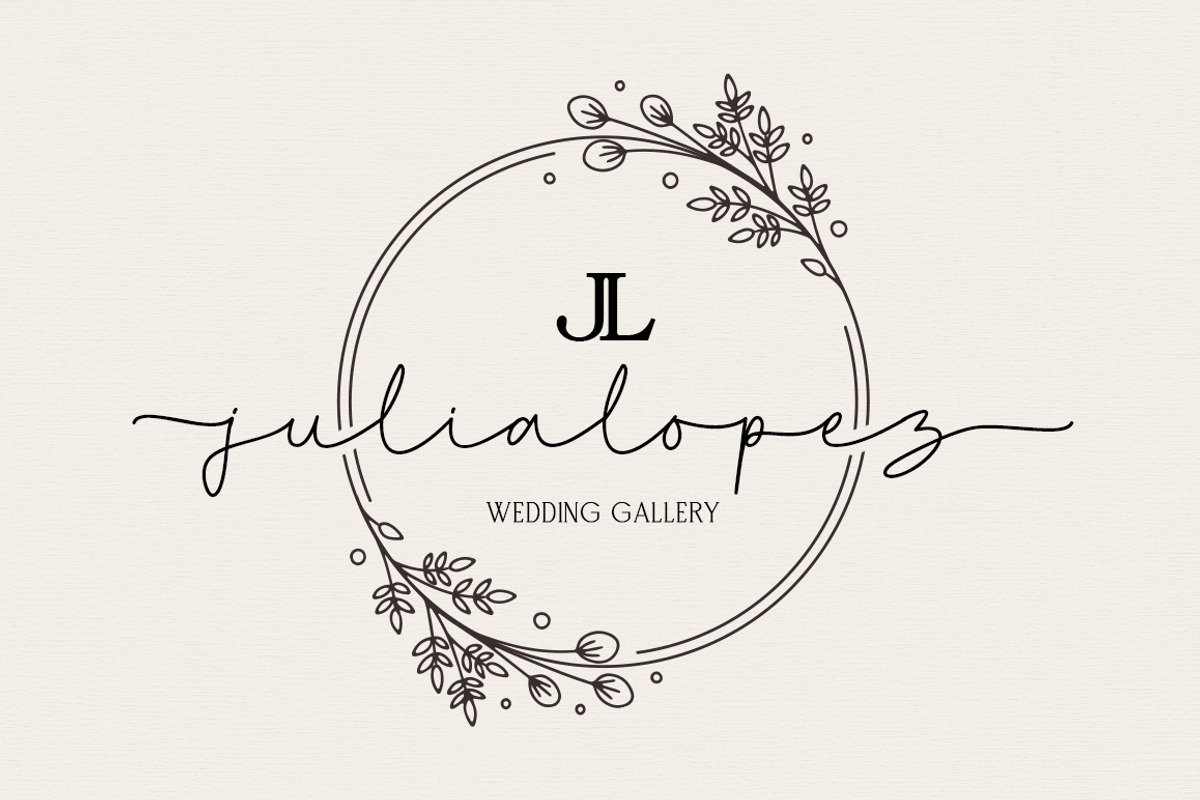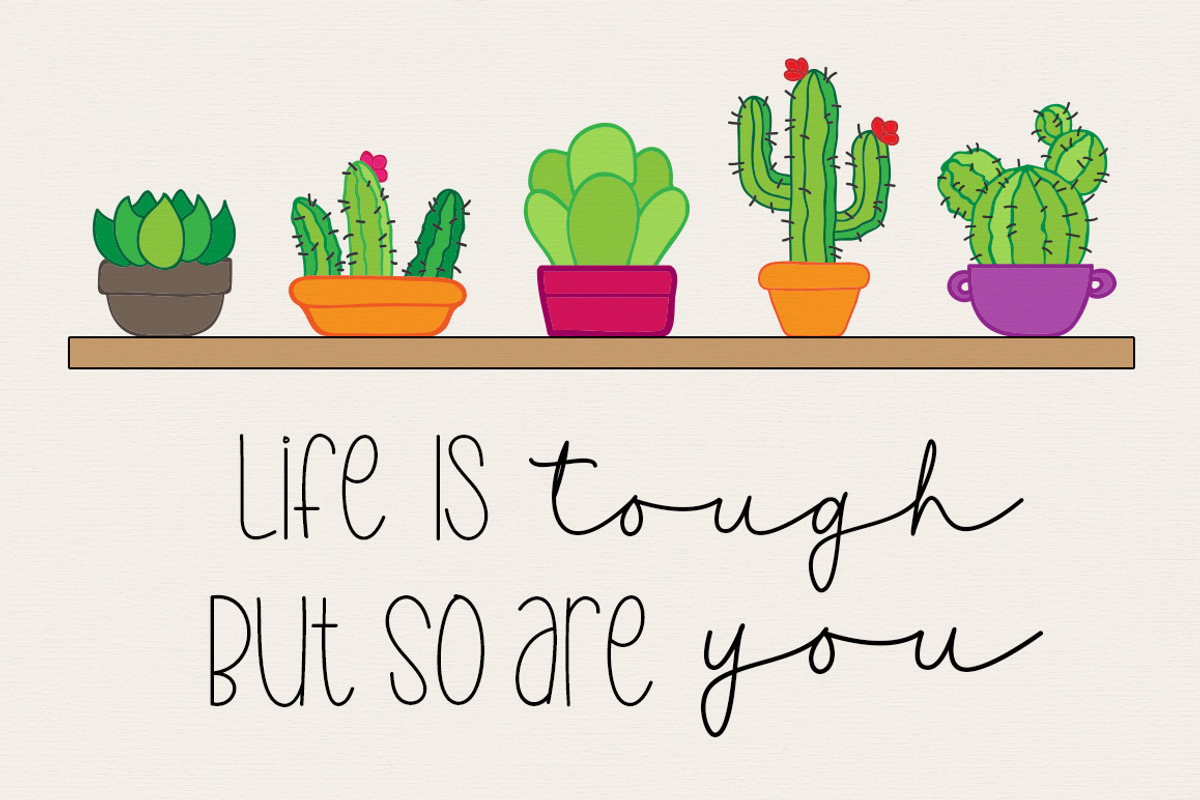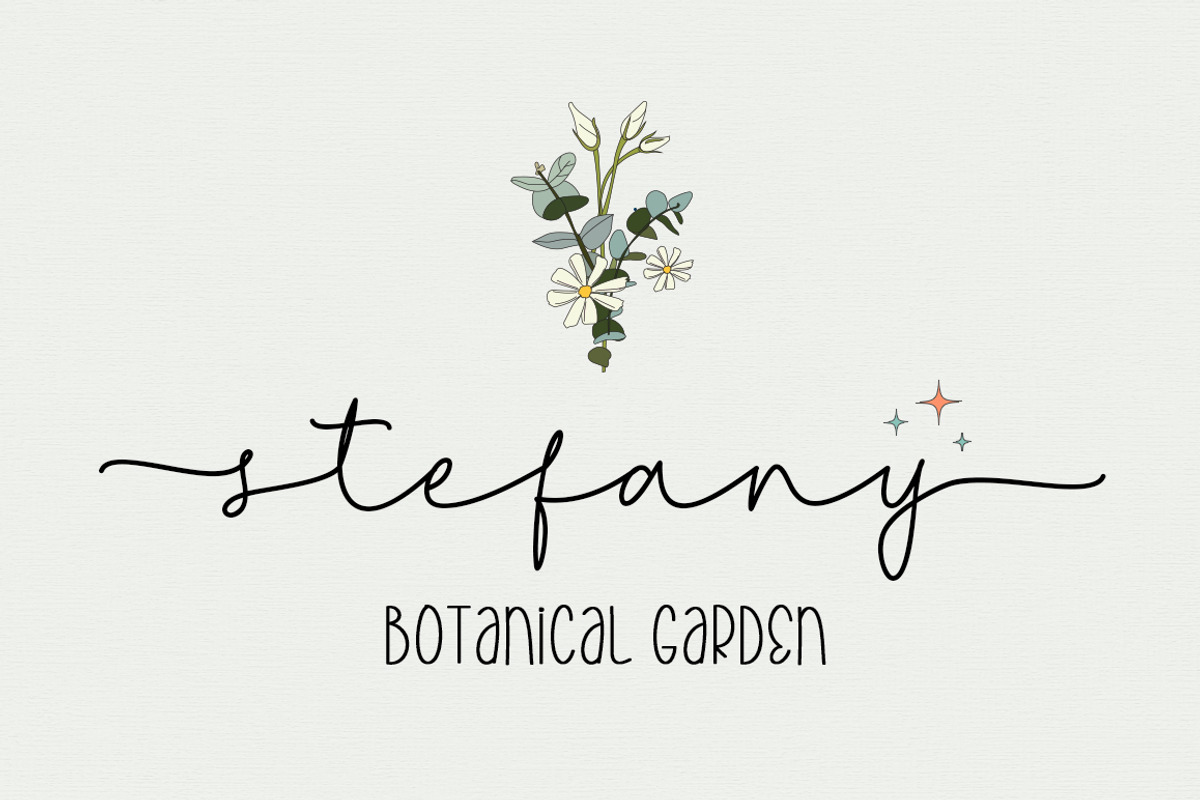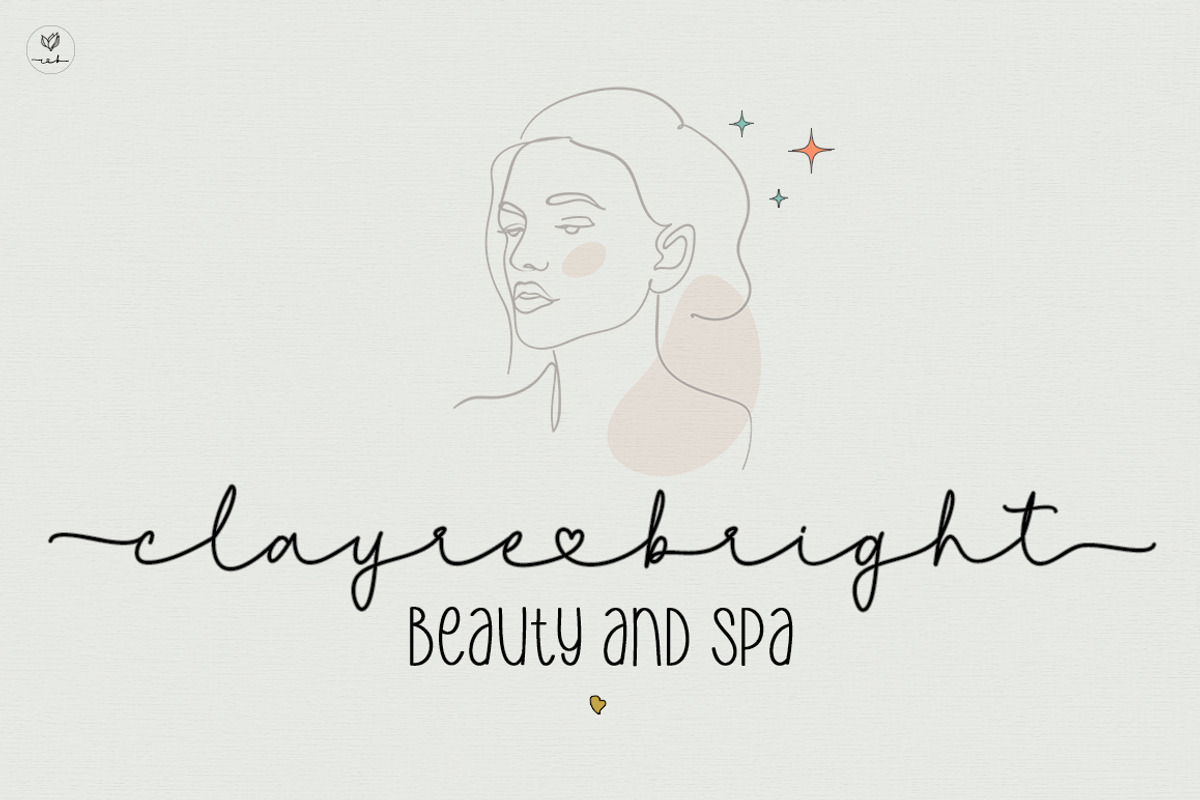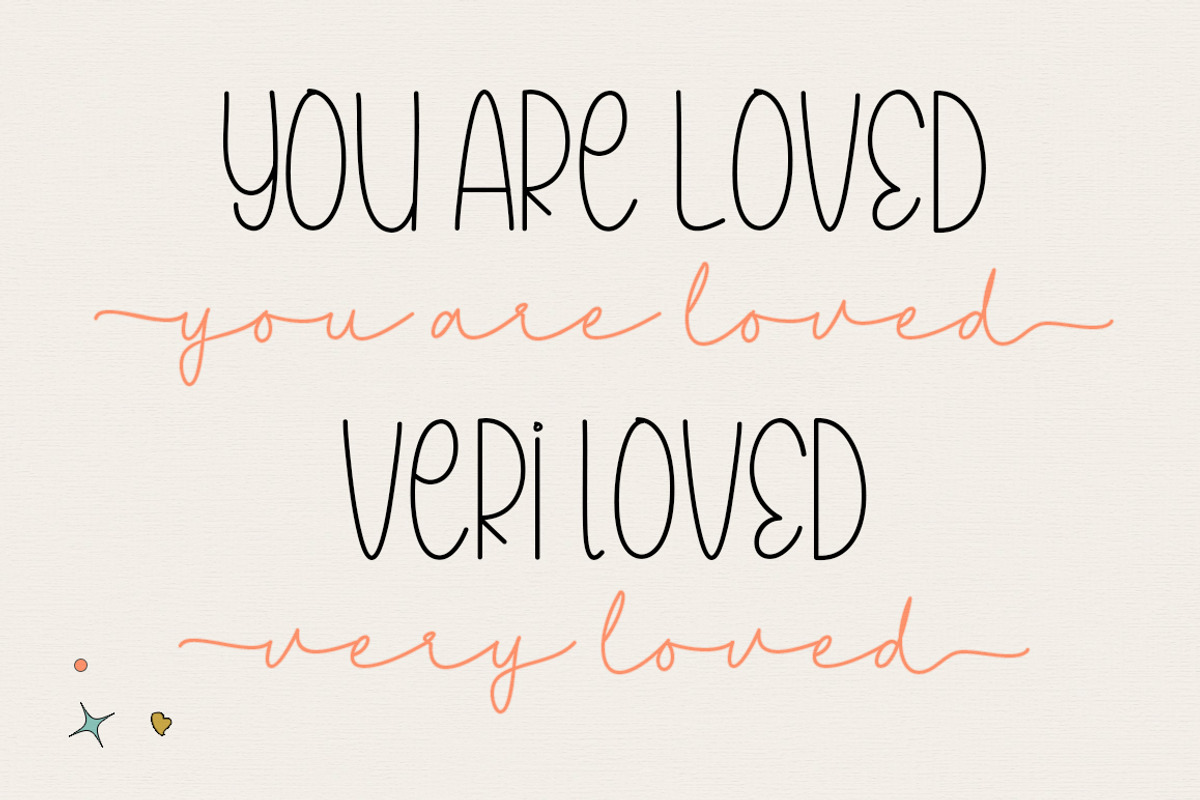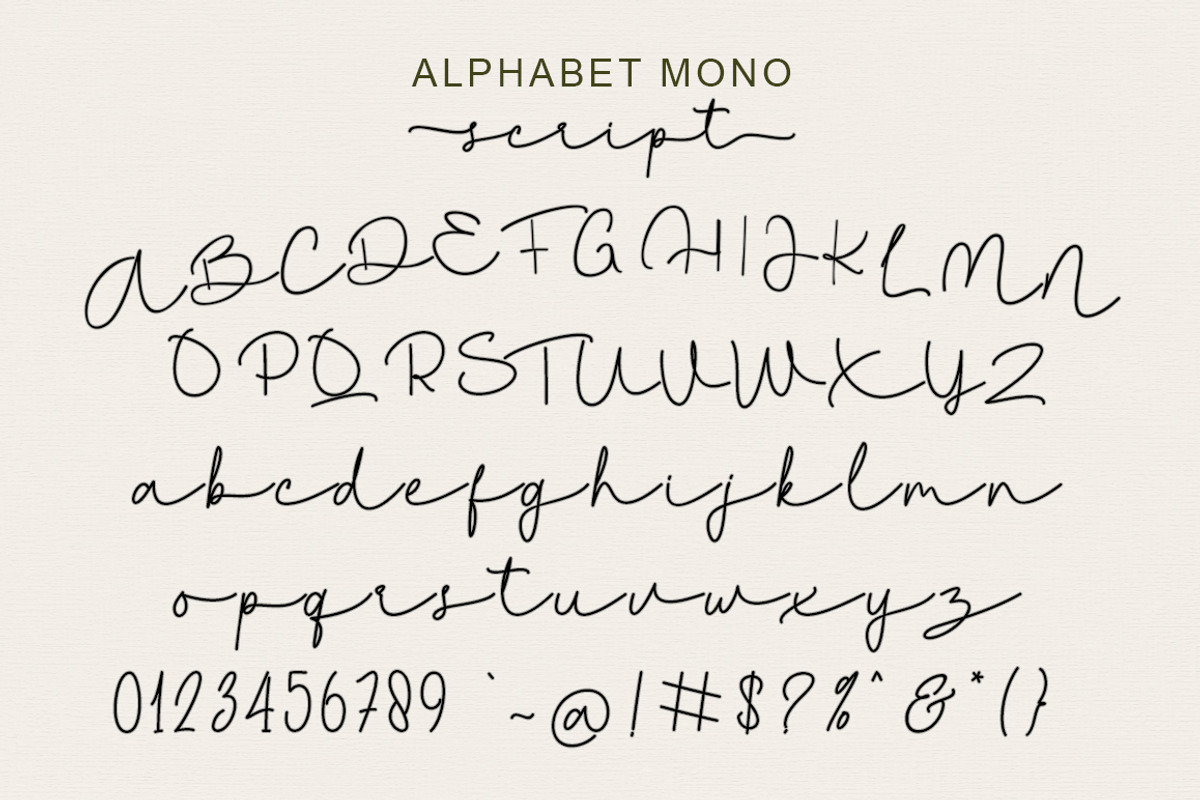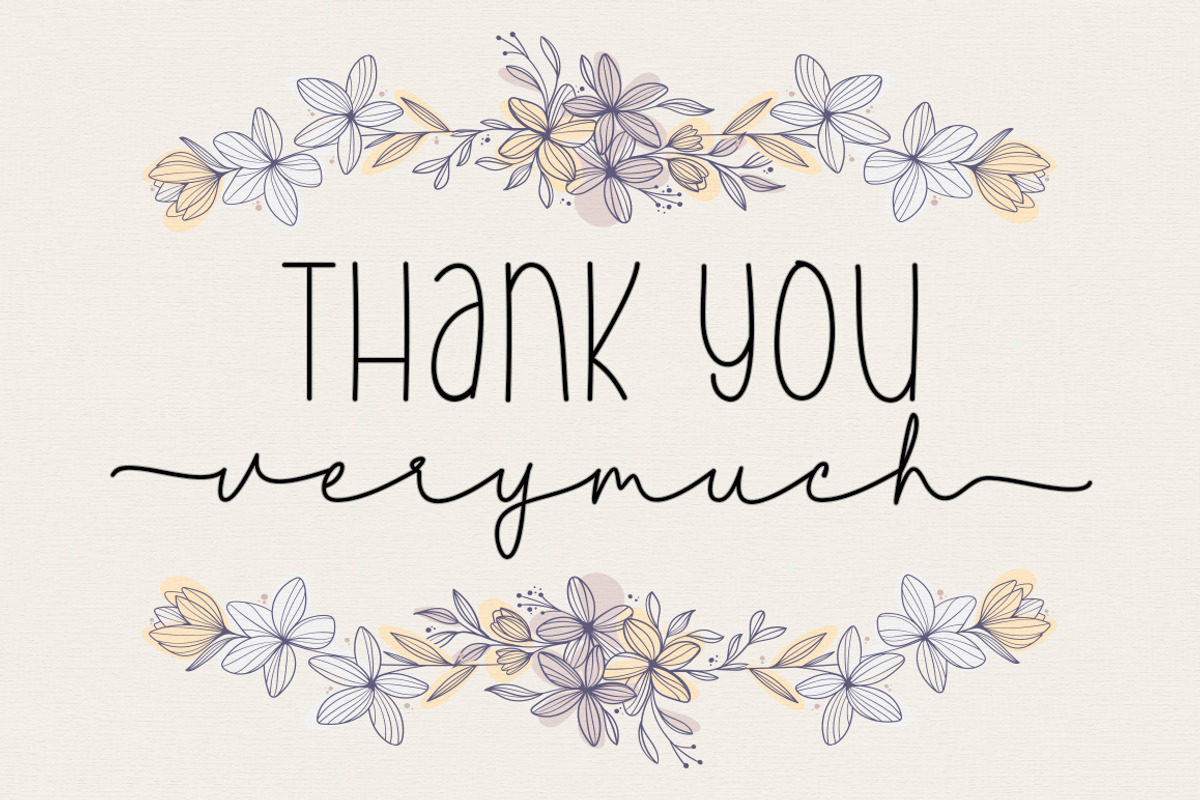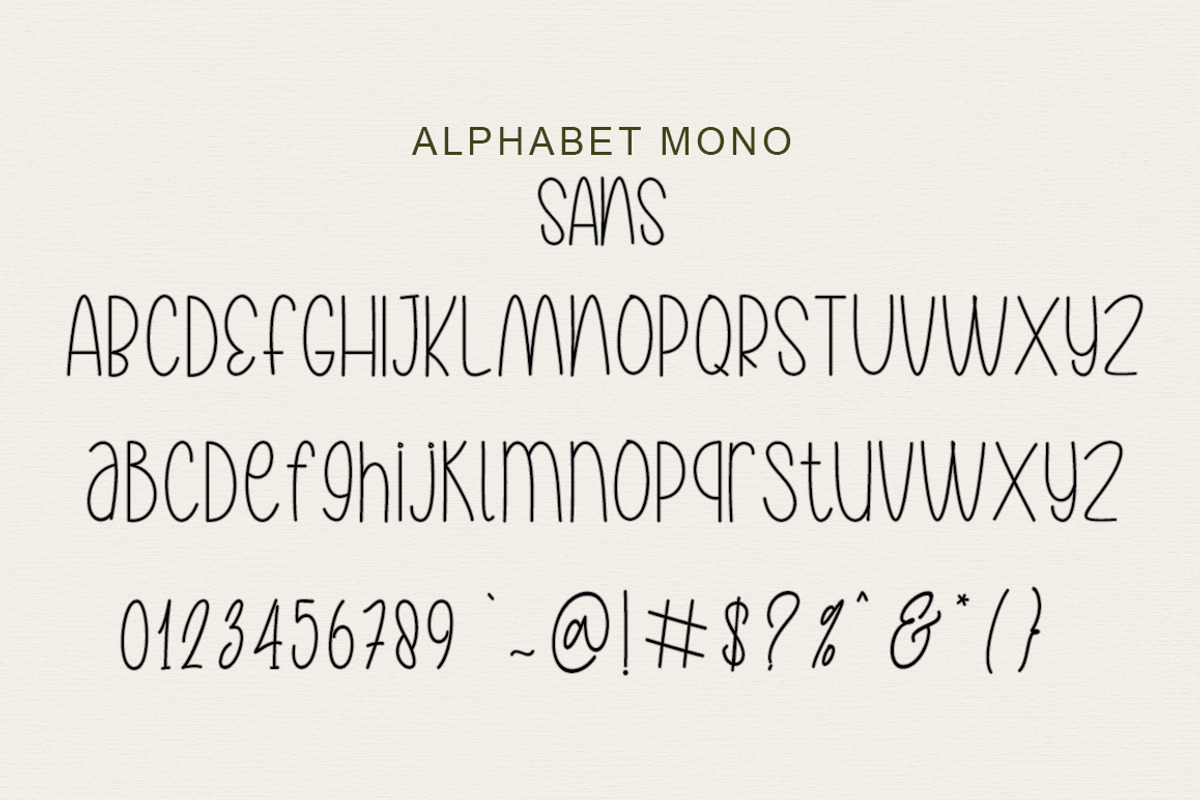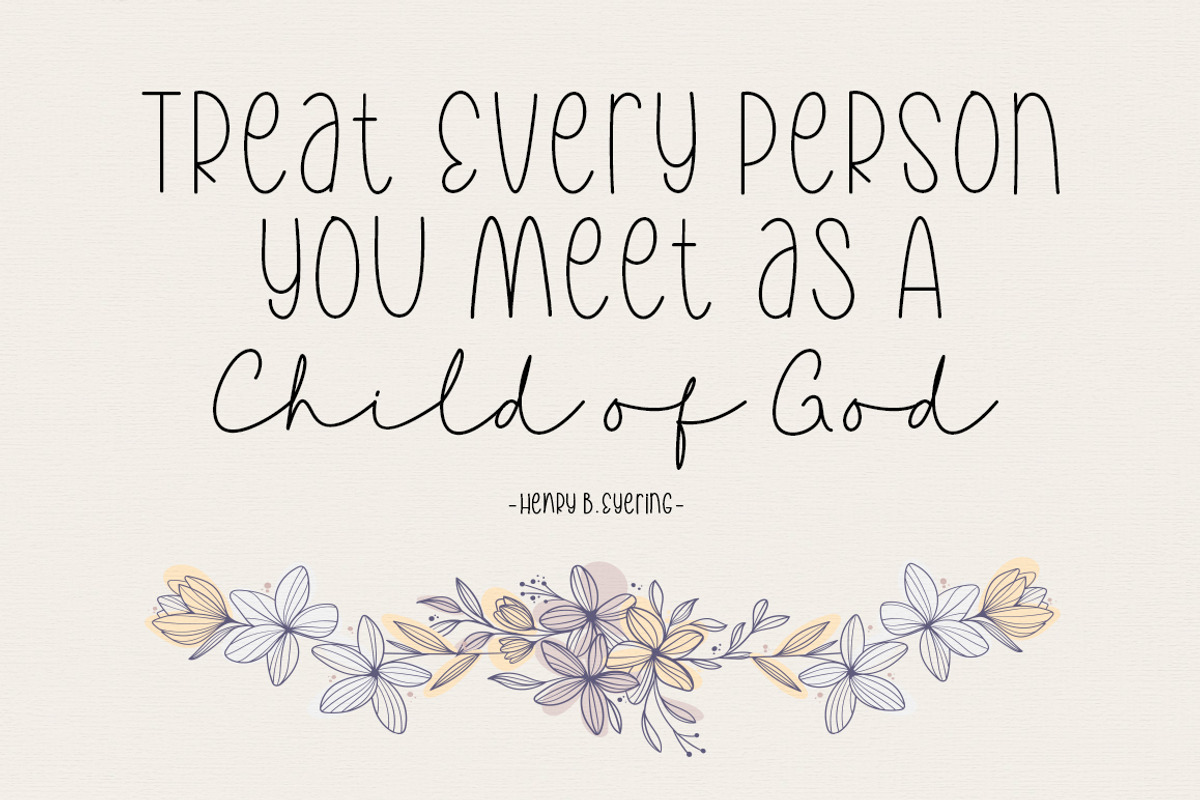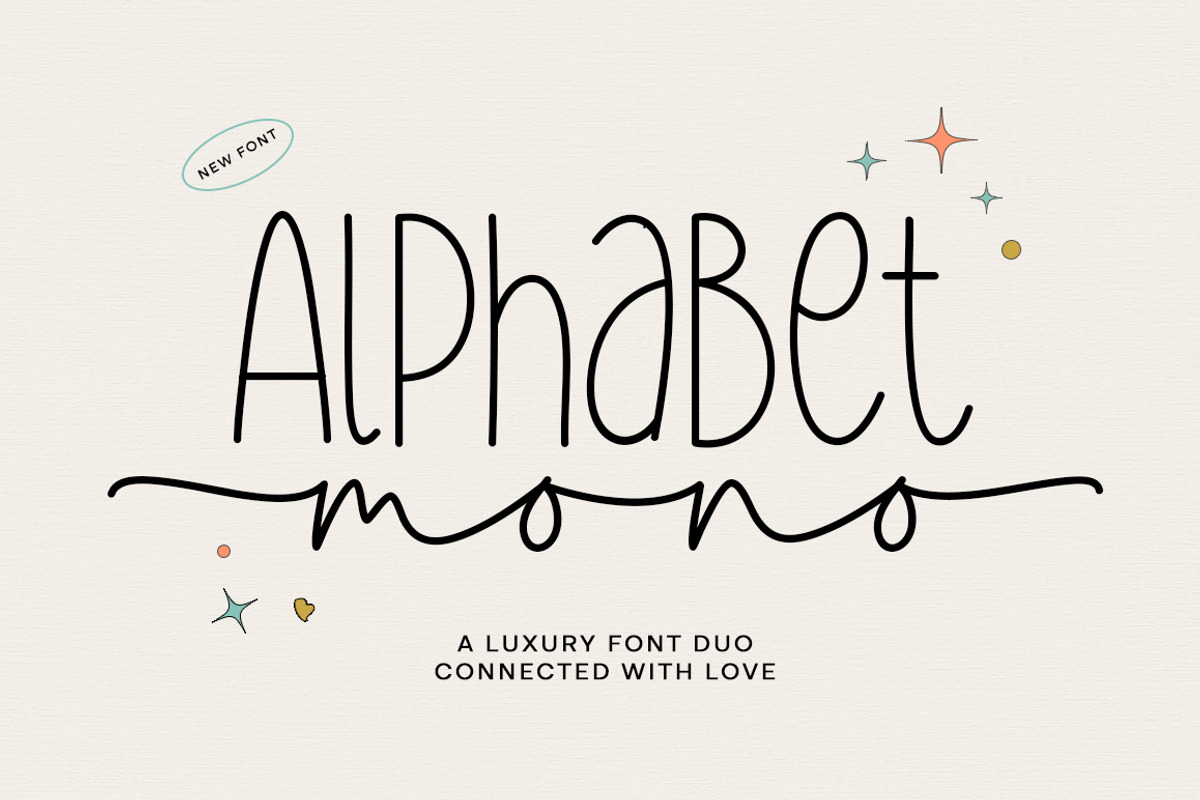
Alphabet Mono Duo
Alphabet Mono is a modern handwritten font with two styles. The carefully crafted font collection combines informal, romantic, sweet, beautiful design elements and hand-drawn typography design elements. This font is great for designing magazine preview and cover designs, logo designs, invitation cards, and other graphic needs.